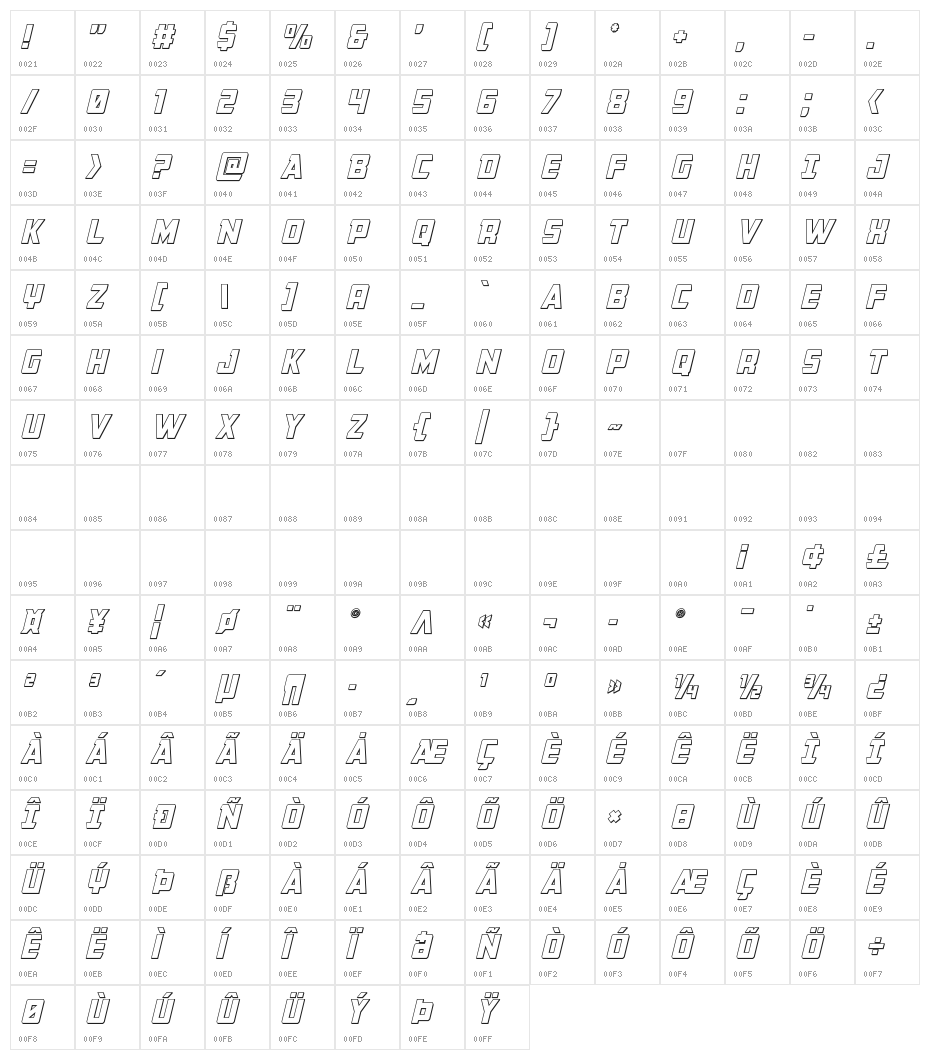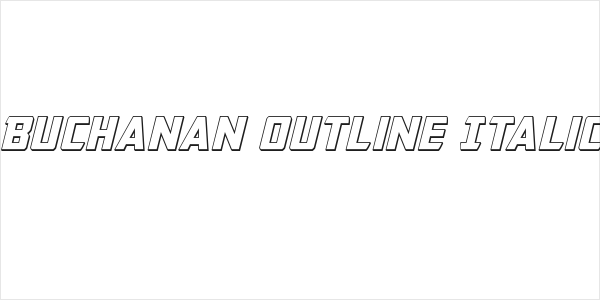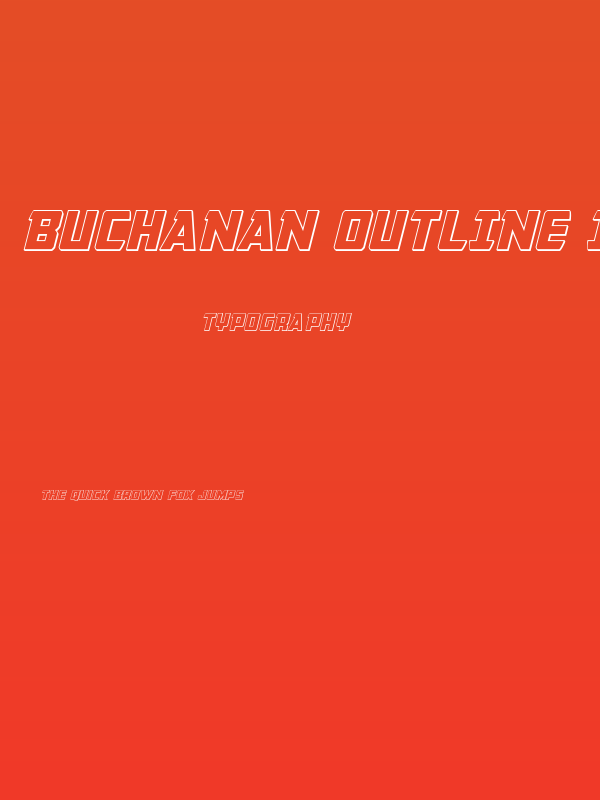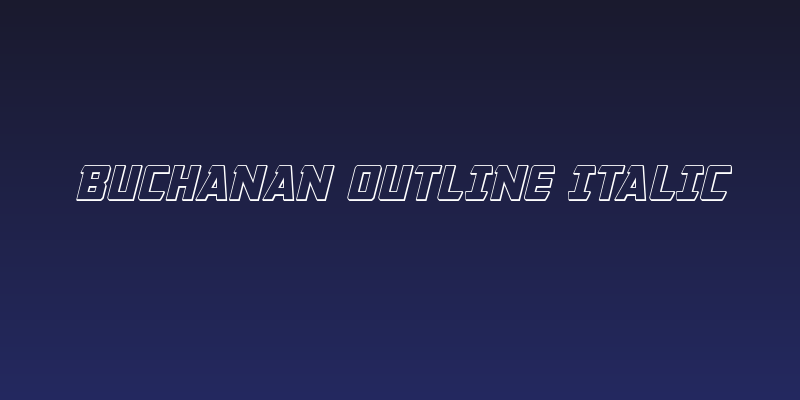
Buchanan Outline Italic Font
Buchanan Outline Italic Description
This font features a bold, outlined style with a distinct italic slant, giving it a dynamic and modern appearance. The characters are uppercase and numerals, each with a consistent outline that enhances readability while maintaining a stylish edge. The geometric structure of the letters provides a sense of stability and strength, making it suitable for impactful designs. The spacing between characters is balanced, ensuring clarity and legibility even at smaller sizes. This font's unique outline and italicized form make it stand out, ideal for creative and bold design projects.